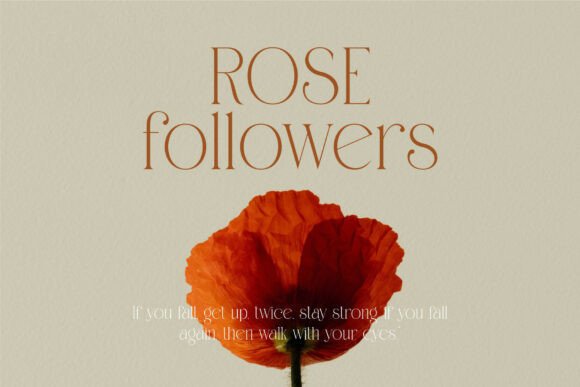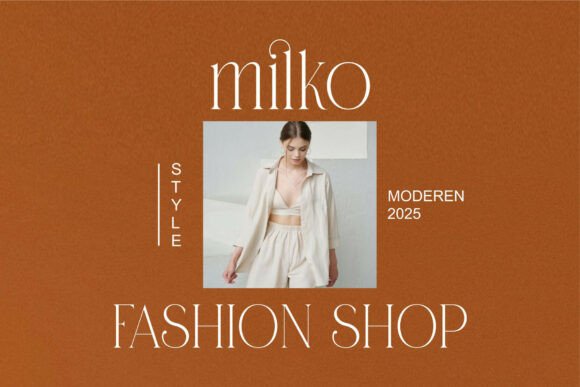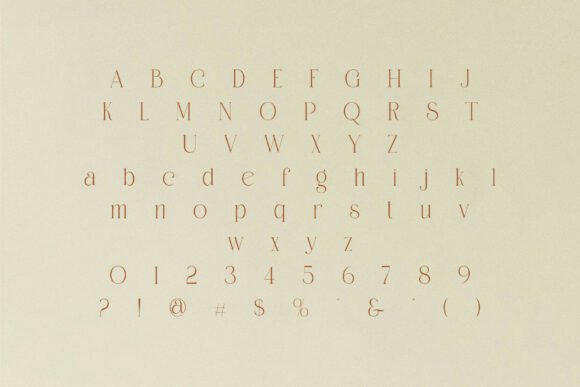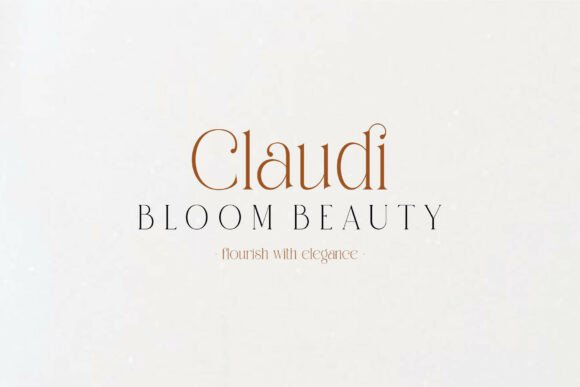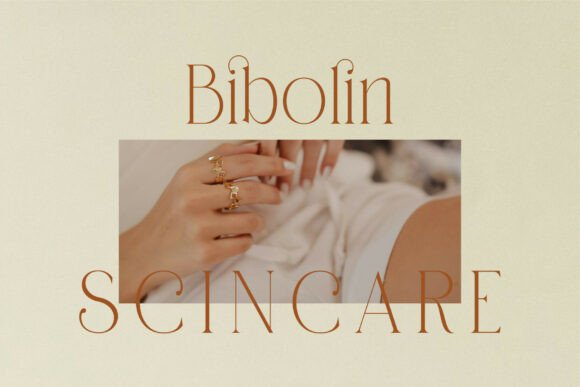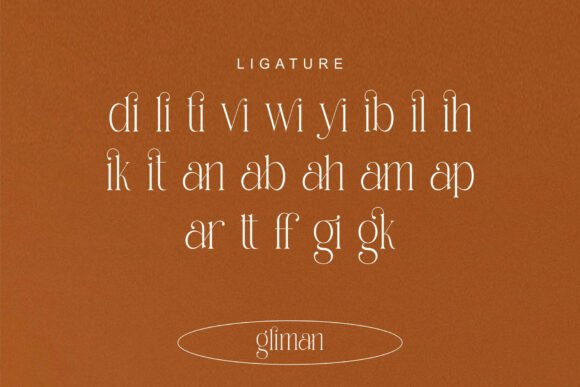
Introducing Gliman Font: Elevate Your Designs with Elegance and Sophistication
In the world of typography, a font can make or break a design. For designers and crafters, finding the perfect font that embodies elegance, modernity, and uniqueness can be a daunting task. However, we are excited to introduce the Gliman Serif Family font, a game-changing addition to the typography landscape. This fashionable, modern, and elegant serif font is designed to take your branding and logo designs to the next level.
What is Gliman Font?
Gliman Font is a thoughtfully crafted serif font family that boasts a range of weights, making it versatile and suitable for various design applications. Its sleek and sophisticated design ensures that your logos, branding materials, and other creative projects exude class and elegance. With Gliman Font, you can bid farewell to bland and uninspiring typography and hello to unique and eye-catching designs.
Key Features of Gliman Font
- Multiple Weights: The Gliman Serif Family font offers a range of weights, providing you with the flexibility to choose the perfect style to suit your design needs.
- Elegant and Modern Design: The font’s sleek lines, refined curves, and stylish extras make it an ideal choice for designers seeking to create sophisticated and contemporary designs.
- Stylish Extras: Gliman Font comes with a range of stylish extras, including ligatures, swashes, and alternate characters, allowing you to add a touch of personality to your designs.
- Perfect for Branding and Logo Design: The font’s unique and elegant design makes it an excellent choice for creating memorable logos and branding materials that stand out from the crowd.
Benefits of Using Gliman Font
By incorporating Gliman Font into your design workflow, you can enjoy a range of benefits, including:
- Enhanced Visual Appeal: The font’s elegant and modern design ensures that your designs exude sophistication and style, capturing the attention of your audience.
- Increased Versatility: With multiple weights and stylish extras, Gliman Font can be used across various design applications, from logos and branding to packaging and digital media.
- Unique and Memorable Designs: The font’s distinctive design ensures that your logos and branding materials stand out from the competition, leaving a lasting impression on your audience.
Tips for Using Gliman Font Effectively
To get the most out of Gliman Font, consider the following tips:
- Pair with Neutral Colors: Combine Gliman Font with neutral colors to create a clean and sophisticated look that lets the font shine.
- Experiment with Weights: Try out different weights to find the perfect balance for your design, adding depth and visual interest.
- Add Texture and Patterns: Incorporate texture and patterns to add an extra layer of depth and visual interest to your designs.
In conclusion, Gliman Font is a stylish and versatile serif font family that is sure to elevate your designs to new heights. With its elegant and modern design, multiple weights, and stylish extras, this font is perfect for designers and crafters seeking to create unique and memorable logos, branding materials, and other creative projects. Whether you’re looking to add a touch of sophistication to your designs or create a bold statement, Gliman Font is the perfect choice.